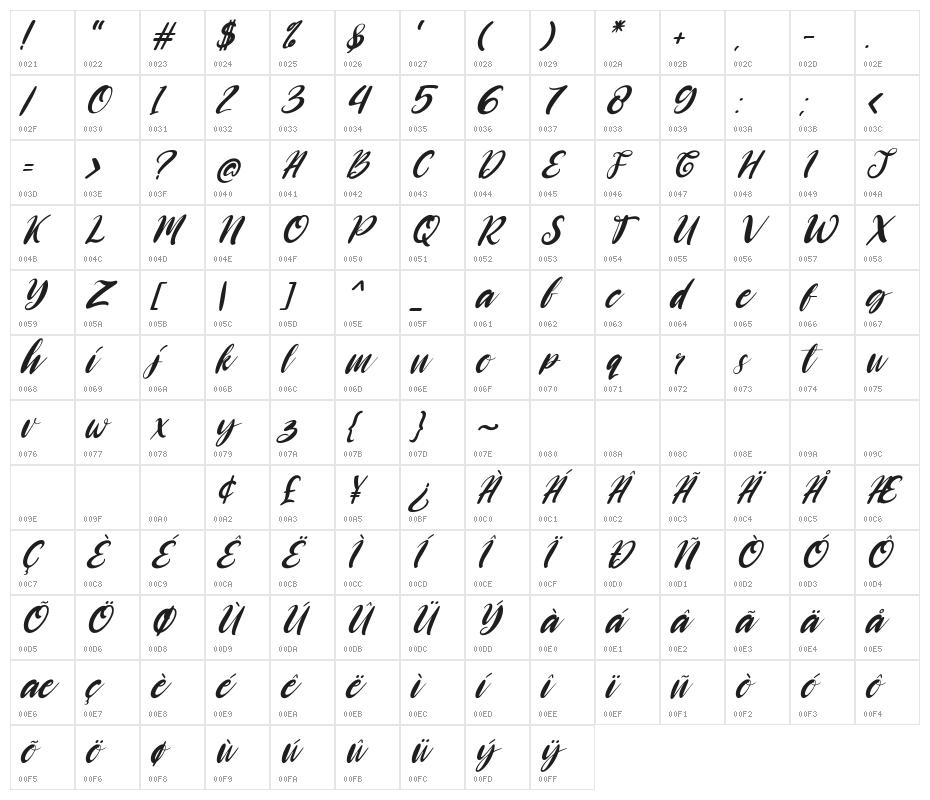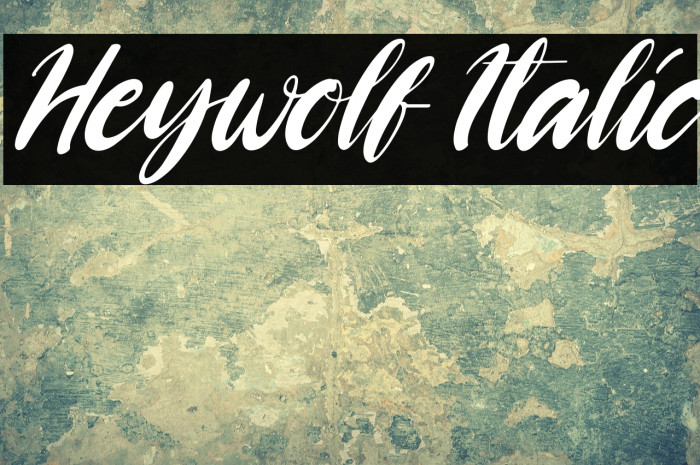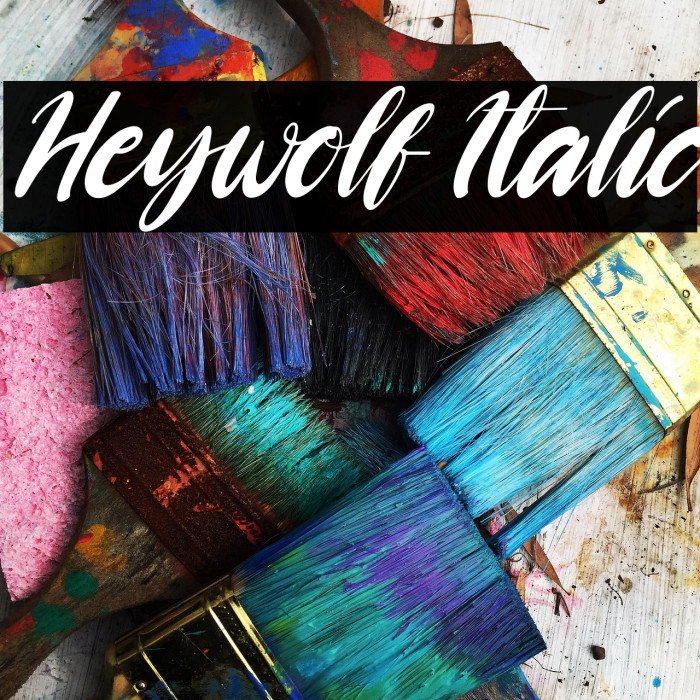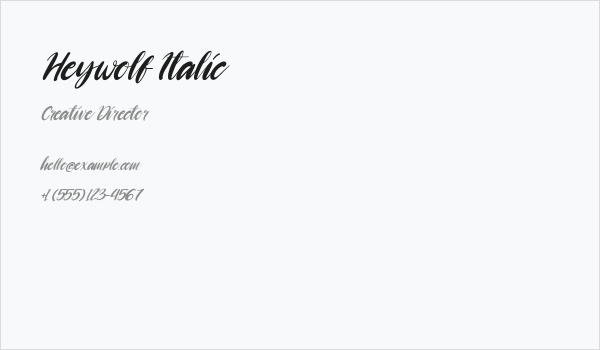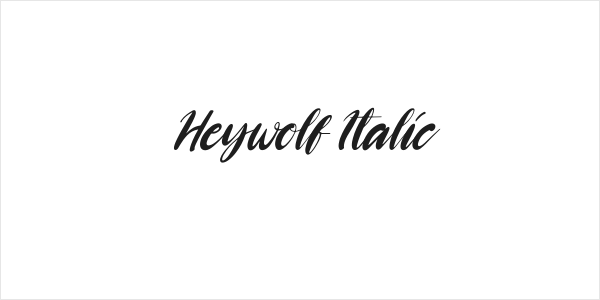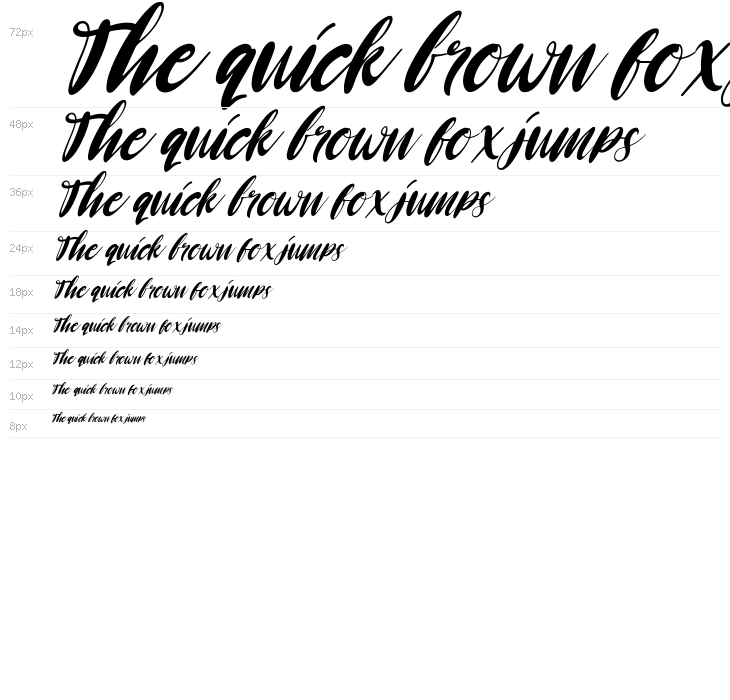
Heywolf Italic Font
Heywolf Italic Description
This font features a bold, cursive style with a strong emphasis on fluidity and elegance. The letters are interconnected, creating a seamless flow that is both dynamic and visually appealing. The uppercase letters exhibit a sophisticated flair with intricate loops and swashes, while the lowercase letters maintain a consistent slant, enhancing the overall italicized appearance. The numerals are equally stylized, matching the script's aesthetic with their rounded forms and smooth curves. Special characters are designed to complement the alphabet, maintaining the same artistic flair. This font exudes a sense of creativity and sophistication, making it ideal for projects that require a touch of elegance and personality.